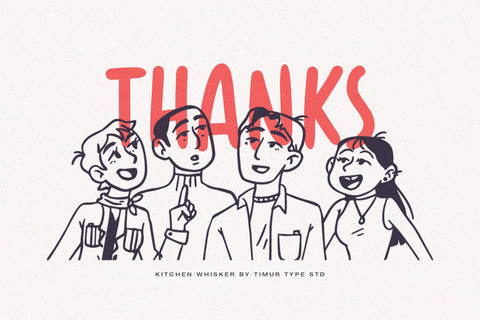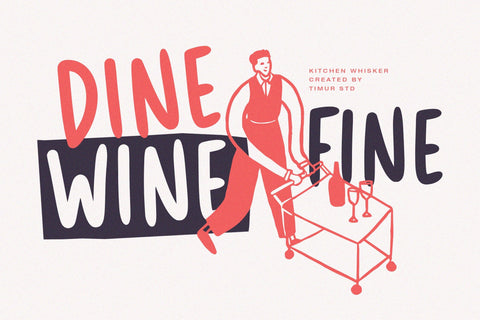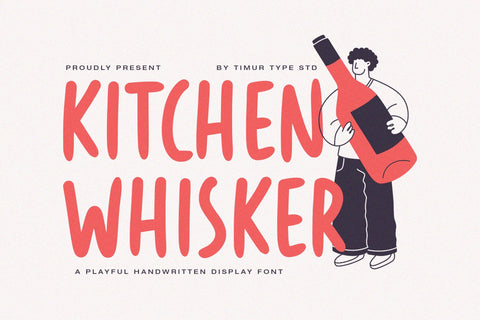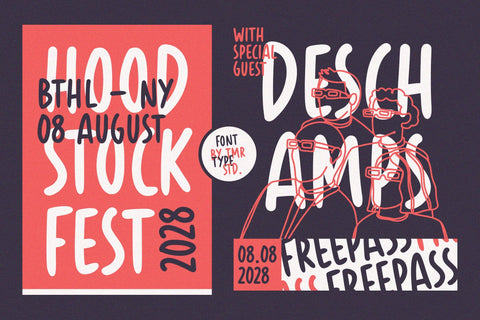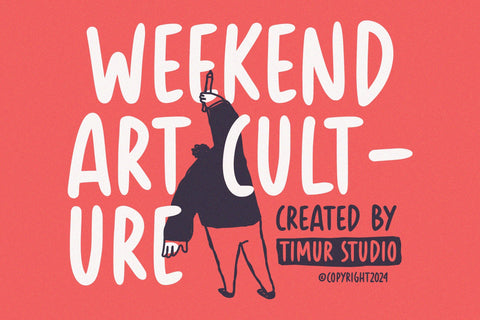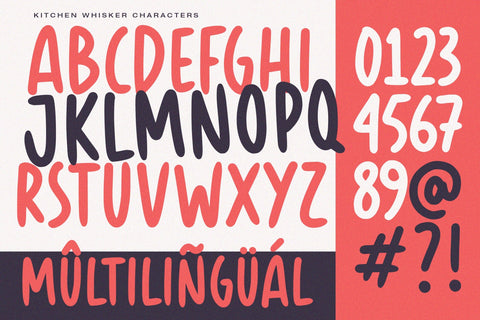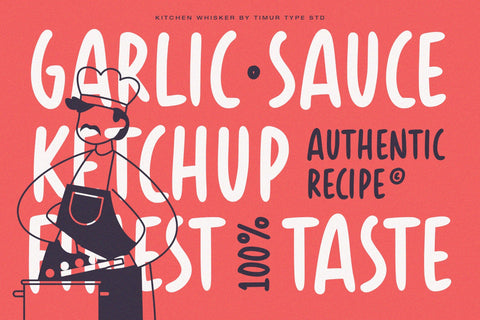
Kitchen Whisker - Playful Handwritten Display Font
Kitchen Whisker is a Playful Handwritten Display Font
This font is a playful handwritten display font that brings a touch of whimsy to your designs. With its charming, organic strokes and delightful curves, this font evokes the warmth of home cooking and creativity. Perfect for food-related projects, recipes, and casual branding, Kitchen Whisker adds a fun, flair that invites viewers to savor every word.
Kitchen Whisker also supports multilingualism